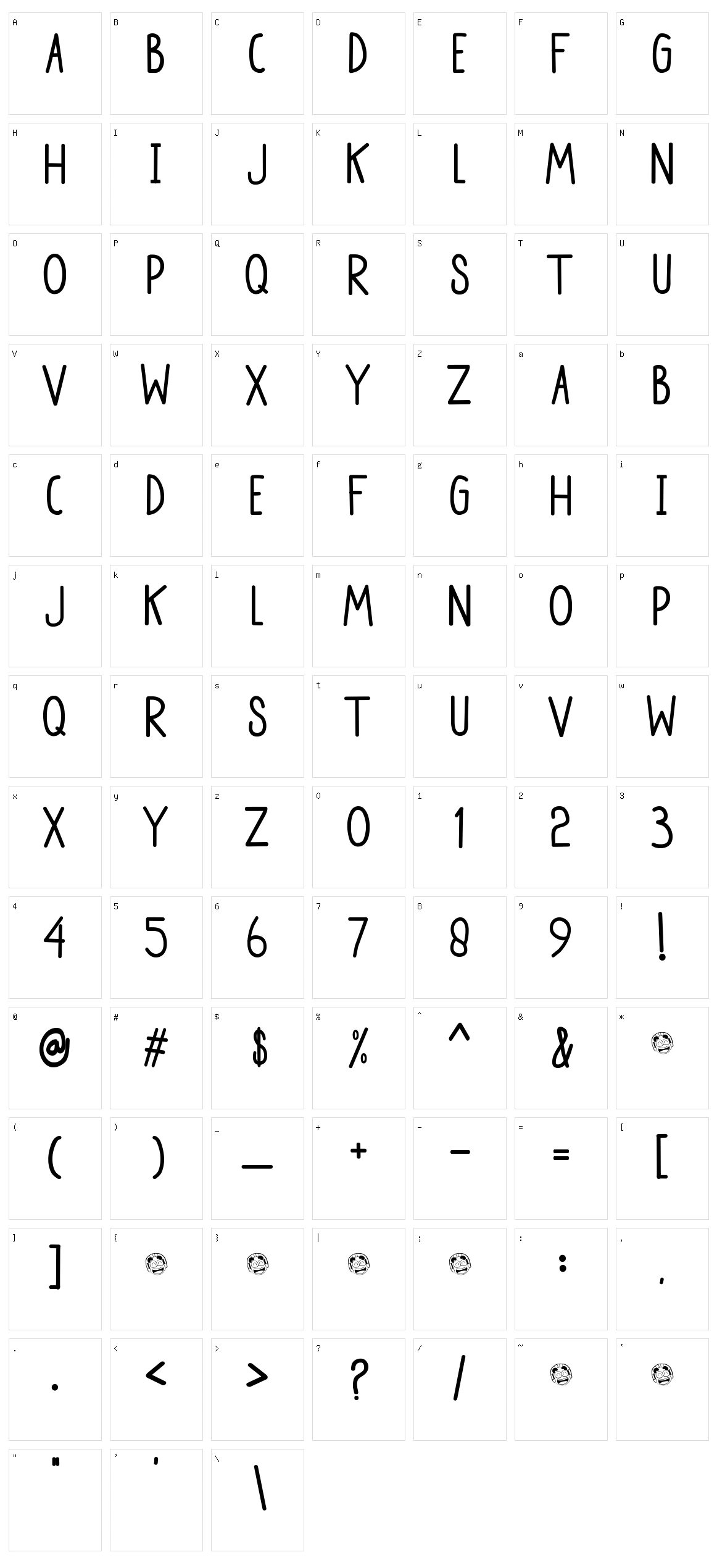
The free font Party Chocolate and Soda is carefully designed by The Docallisme - Amry Al Mursalaat, showcasing a thoughtful balance of creativity and usability and falls under the Script font style. When you download the ZIP file, it contains only 247.03 KB of font files, making it lightweight and quick to download. Please review the license details below to understand permitted usage and distribution rights. If license information is not available, we recommend using this font for personal projects only or contacting the author directly for commercial usage permissions.